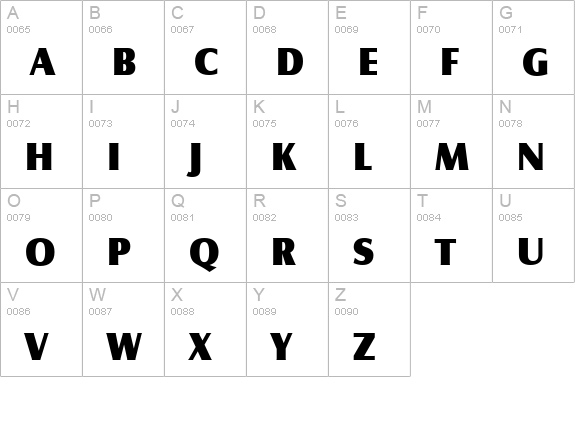
Canossa-Ultra-Regular Font Details
Canossa-Ultra-Regular is an extreme-weight, display variant in the Canossa typeface family \xE2\x80\x94 well suited to extreme display use where maximum visual weight is required.
Canossa Ultra Regular is a stylish and versatile font that exudes elegance and sophistication. With its clean lines and modern aesthetic, this font is perfect for a wide range of design projects, from branding to editorial design. The sleek and contemporary look of Canossa Ultra Regular makes it a perfect choice for creating eye-catching headlines, logos, and marketing materials. What sets Canossa Ultra Regular apart is that it is not only visually appealing but also completely free to download. You can easily access this gorgeous font at FontsMarket.com, where you can unleash your creativity and bring your design visions to life without any cost. Whether you are a seasoned designer or just starting out, Canossa Ultra Regular is a must-have addition to your font collection. Download it today and elevate your projects with this stunning and free font.